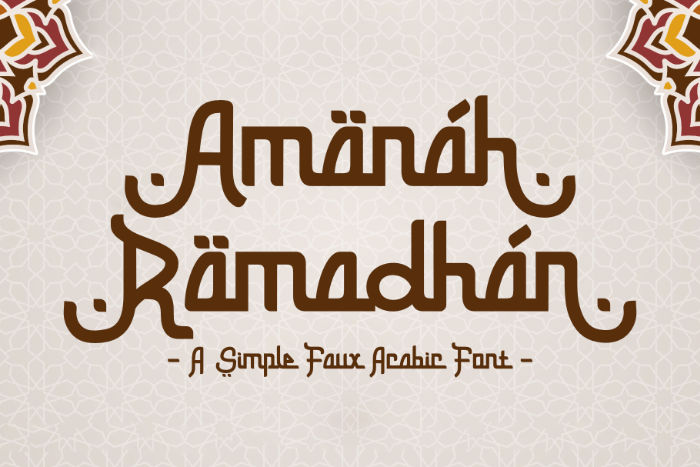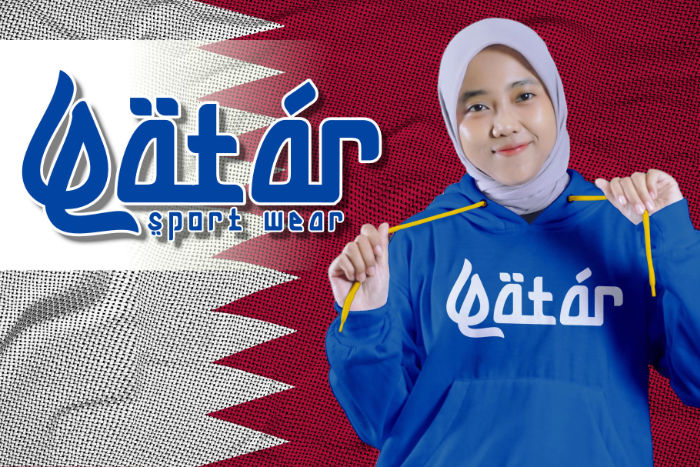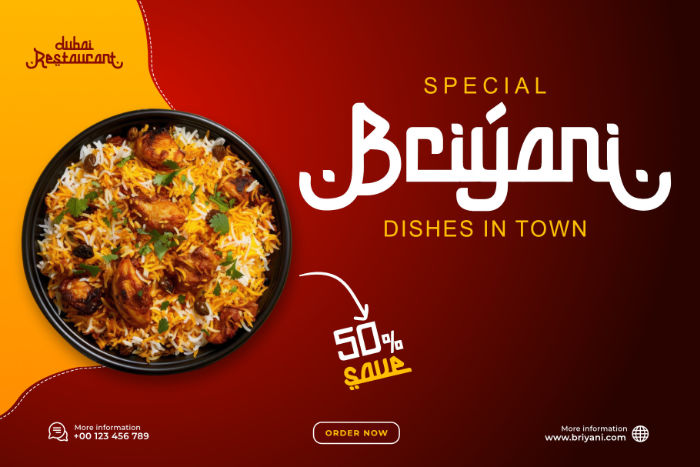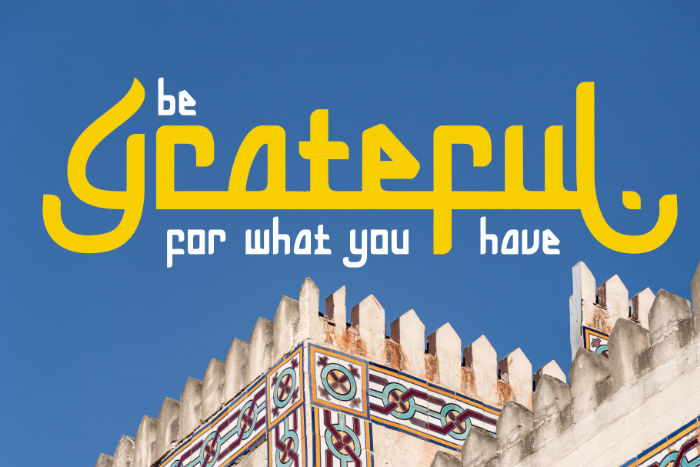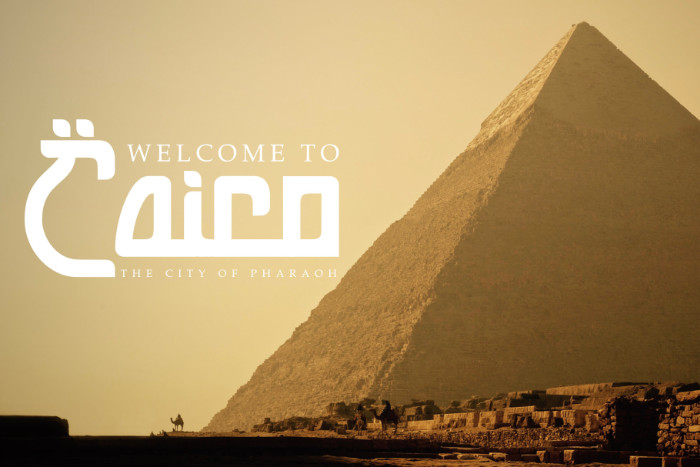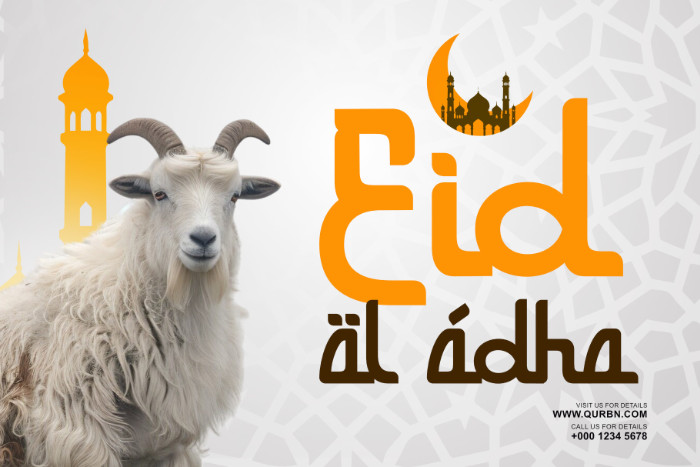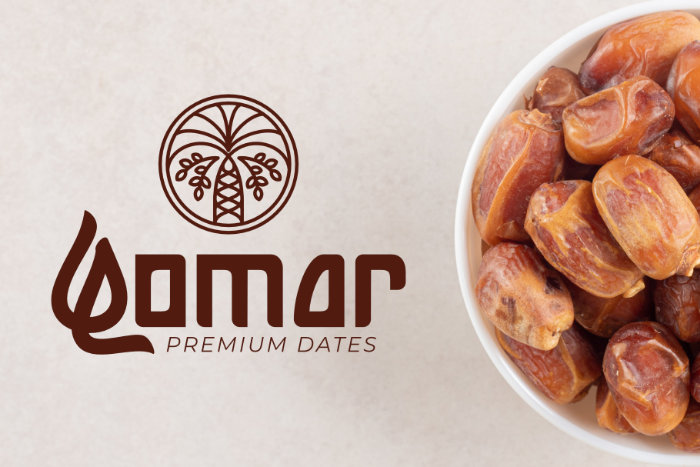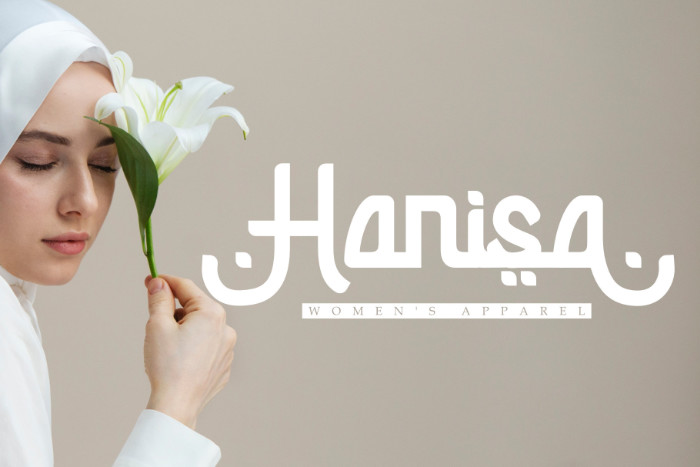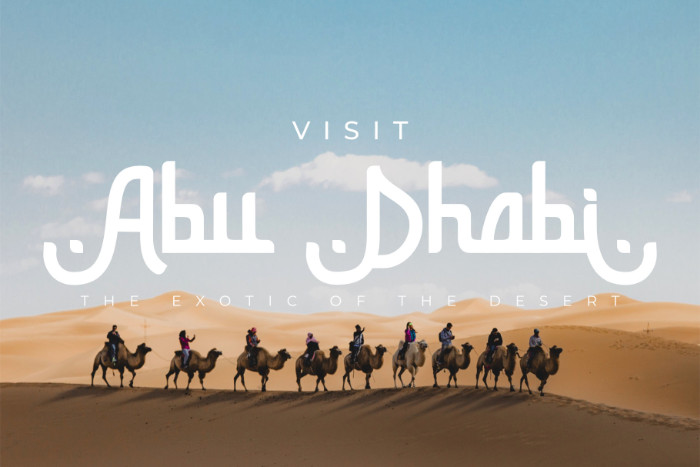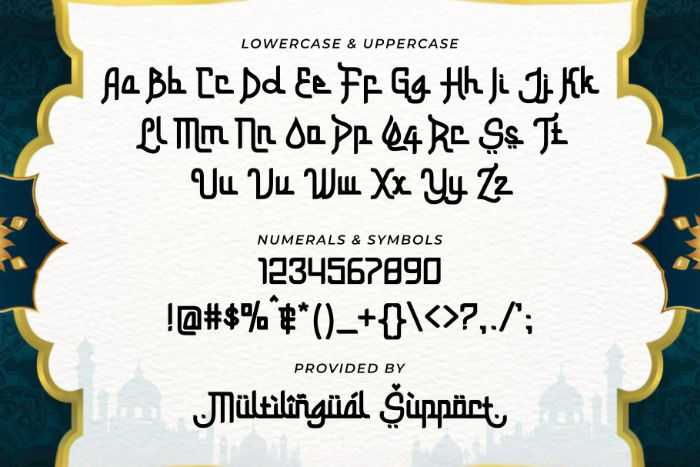
Introduce an element of peace and reverence to your designs with Amanah Ramadhan, a beautifully crafted faux Arabic display font. Designed with a simple, stylish, and minimalist aesthetic, this typeface captures the spirit of Islamic design without the complexity of traditional Arabic script.
Amanah Ramadhan is perfect for all your seasonal needs, making it ideal for Ramadhan and Eid greetings, Islamic branding, religious event flyers, and more. Its clean lines and gentle curves ensure your message is communicated with clarity and grace.
The true versatility of this font lies in its extensive selection of various alternates and swashes. These decorative features allow you to customize your lettering, adding elegant flourishes and unique connections that elevate simple text into a captivating piece of art. Whether you’re designing a logo, a prayer rug pattern, or digital content, Amanah Ramadhan provides the perfect blend of tradition and modern simplicity. Use it to bring a calm, sophisticated, and deeply meaningful feel to your next creative project.